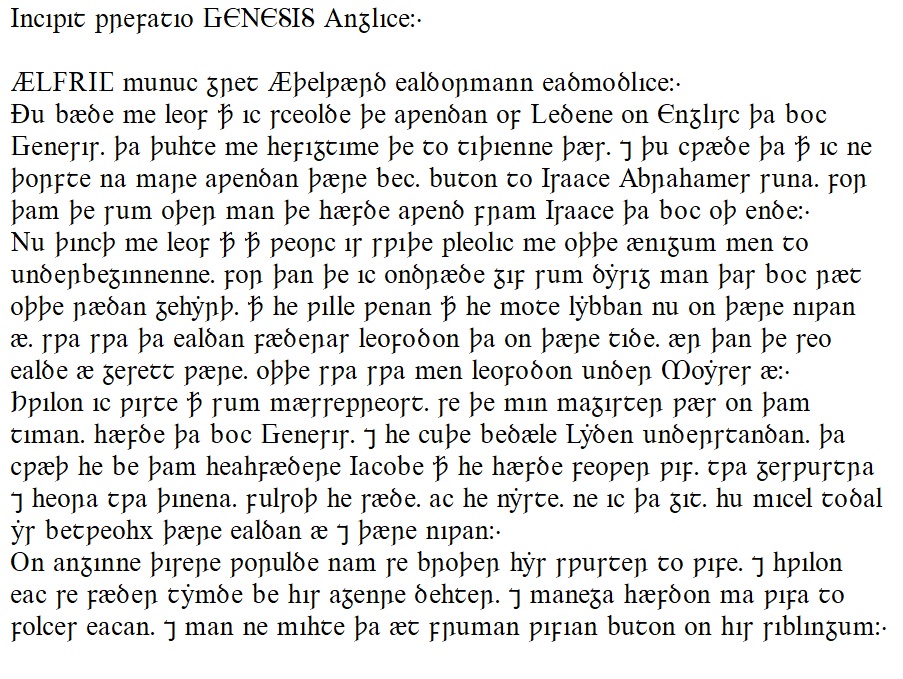
BabelStone Englisc
Description
BabelStone Englisc is a font for Old English in the general style of the Anglo-Saxon font cut for Franciscus Junius (1591–1677) in about 1655, and used in various editions of Anglo-Saxon texts published in Oxford during the 17th and 18th centuries, for example the Anglo-Saxon Heptateuch compiled by Edward Thwaites, and published in 1698. The font uses the same letterforms as the Junius font, but not necessarily exactly same glyph forms. Some characters are double-mapped, both to their proper Unicode code point and to the semantically-corresponding character (e.g. 'wynn' maps to 'wynn' and 'w'; and 'and' maps to 'tyronian et' and 'ampersand').
NB This font is only available in regular style, and there are no bold or italic versions.
Sample of BabelStone Englisc at 20 points
The table below lists the Basic Latin characters in the font, and other letters commonly used for writing Old English. The font also supports various accented letters not listed.